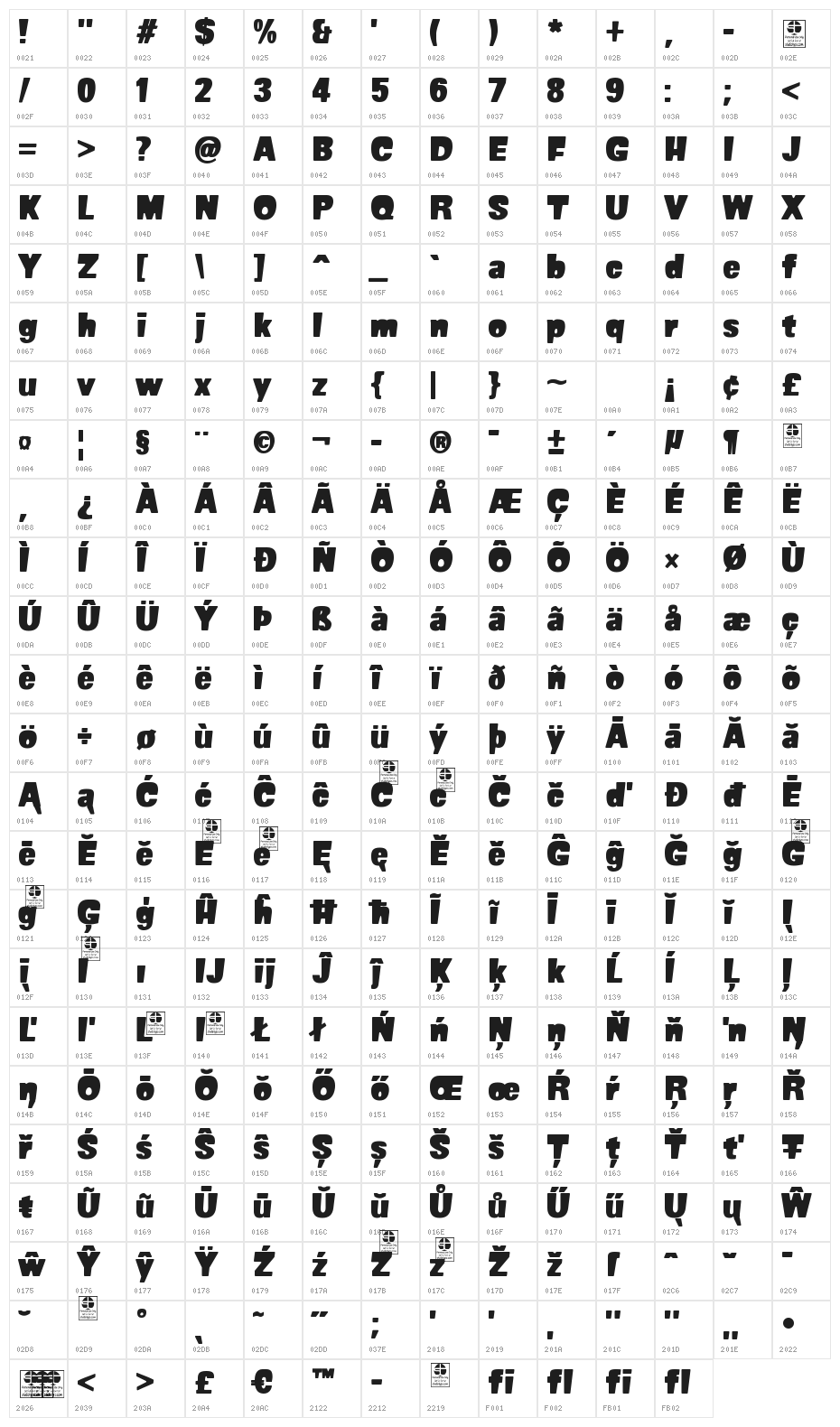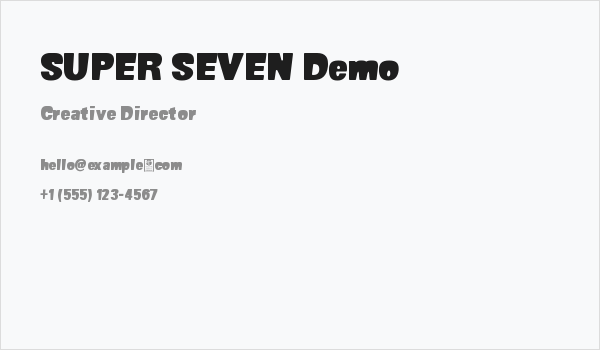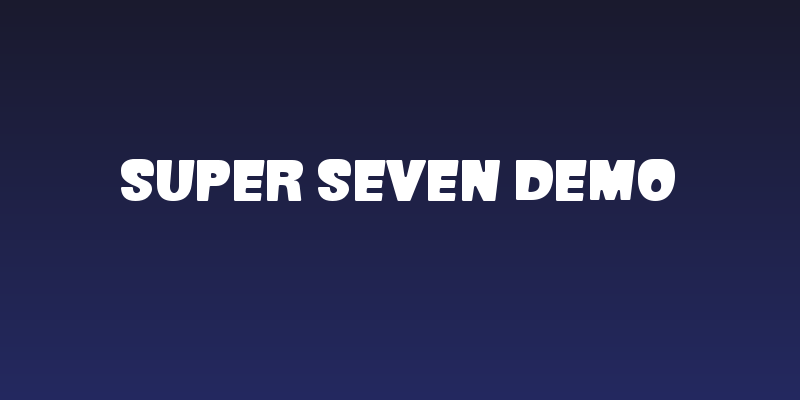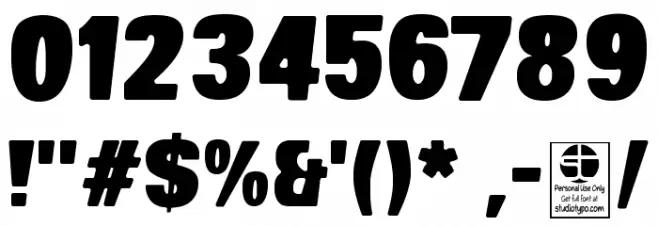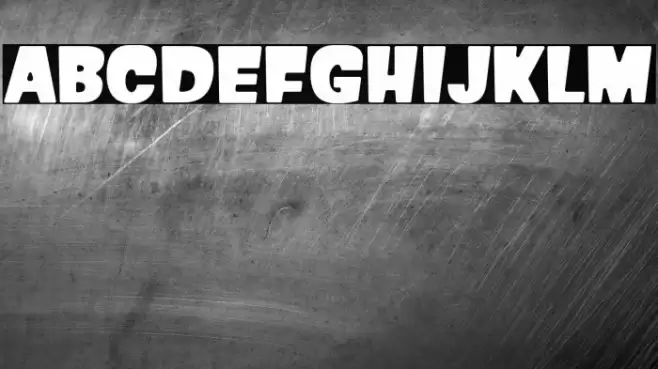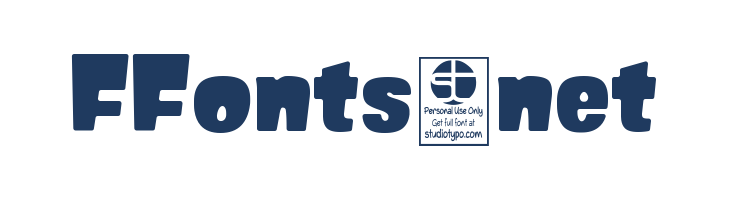
SUPER SEVEN Demo Font
This font features a bold and robust design with thick, rounded strokes that give it a strong and impactful presence. The uppercase and lowercase letters maintain a consistent weight, providing a cohesive look across all characters. The numbers and special characters are equally bold, ensuring they stand out in any context. The overall style is playful yet assertive, making it suitable for designs that require a strong visual impact. The character spacing is relatively tight, which enhances the compact and solid appearance of the text.
| Overall Style | Playful, Bold |
| Proposed Projects | Ideal for posters, headlines, branding, and any design requiring a bold statement. |